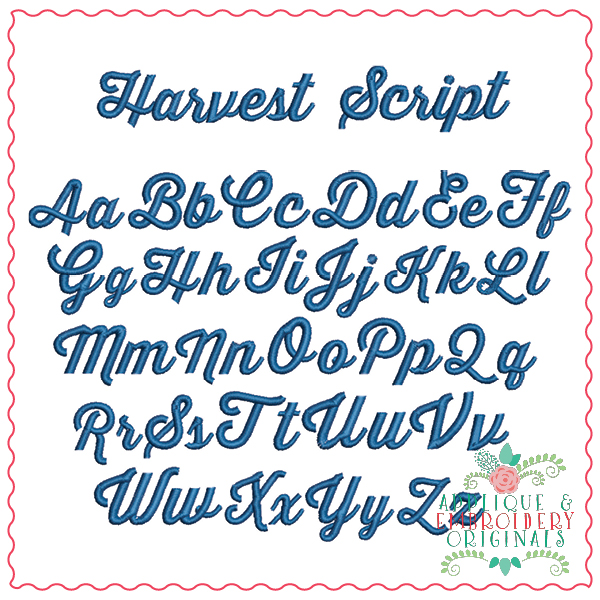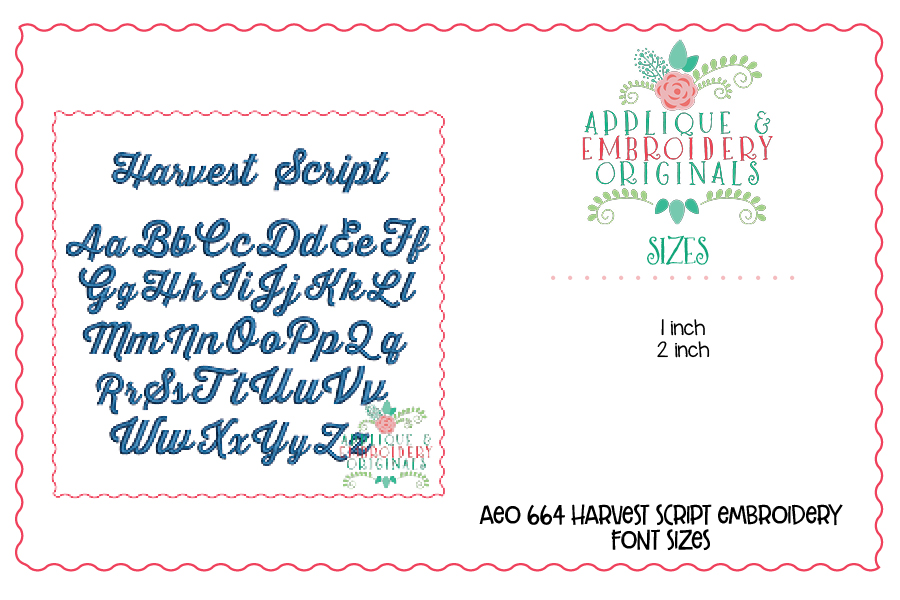
664 Harvest Script Embroidery Font for embroidery machine. Perfect for your shirt, bag, towel or other item!
Designs comes in sizes 1″ and 2″. All letters include A-Z, a-z. All letters are satin stitch.